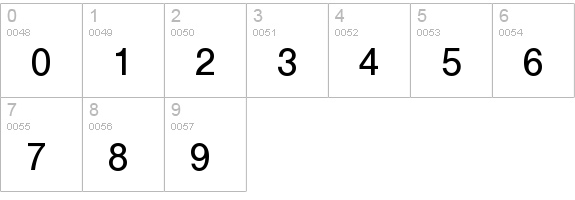
NimbusSanT Font Details
NimbusSanT is a modern and elegant font that exudes sophistication and style. With its sleek lines and clean design, NimbusSanT is the perfect choice for a wide range of design projects, from branding to editorial layouts. This versatile font is sure to make a lasting impression on your audience. What makes NimbusSanT even more appealing is that it is completely free to download at FontsMarket.com. Yes, you read that right - this high-quality font can be yours at no cost. Whether you're a professional designer looking to add a new font to your collection or a hobbyist looking for something fresh to use in your projects, NimbusSanT is a fantastic choice that won't break the bank. Don't miss out on the opportunity to elevate your designs with NimbusSanT - download it for free today at FontsMarket.com and start creating beautiful and impactful designs that stand out from the crowd.